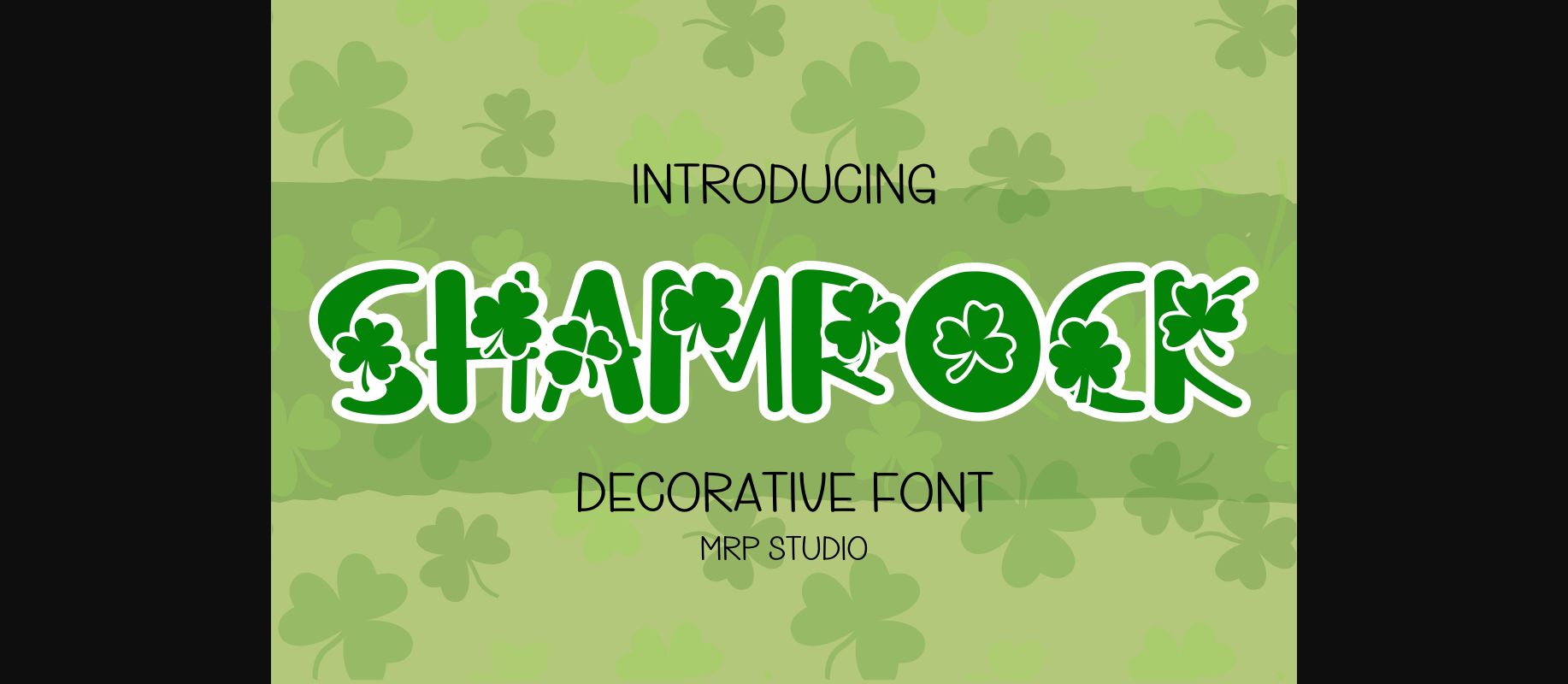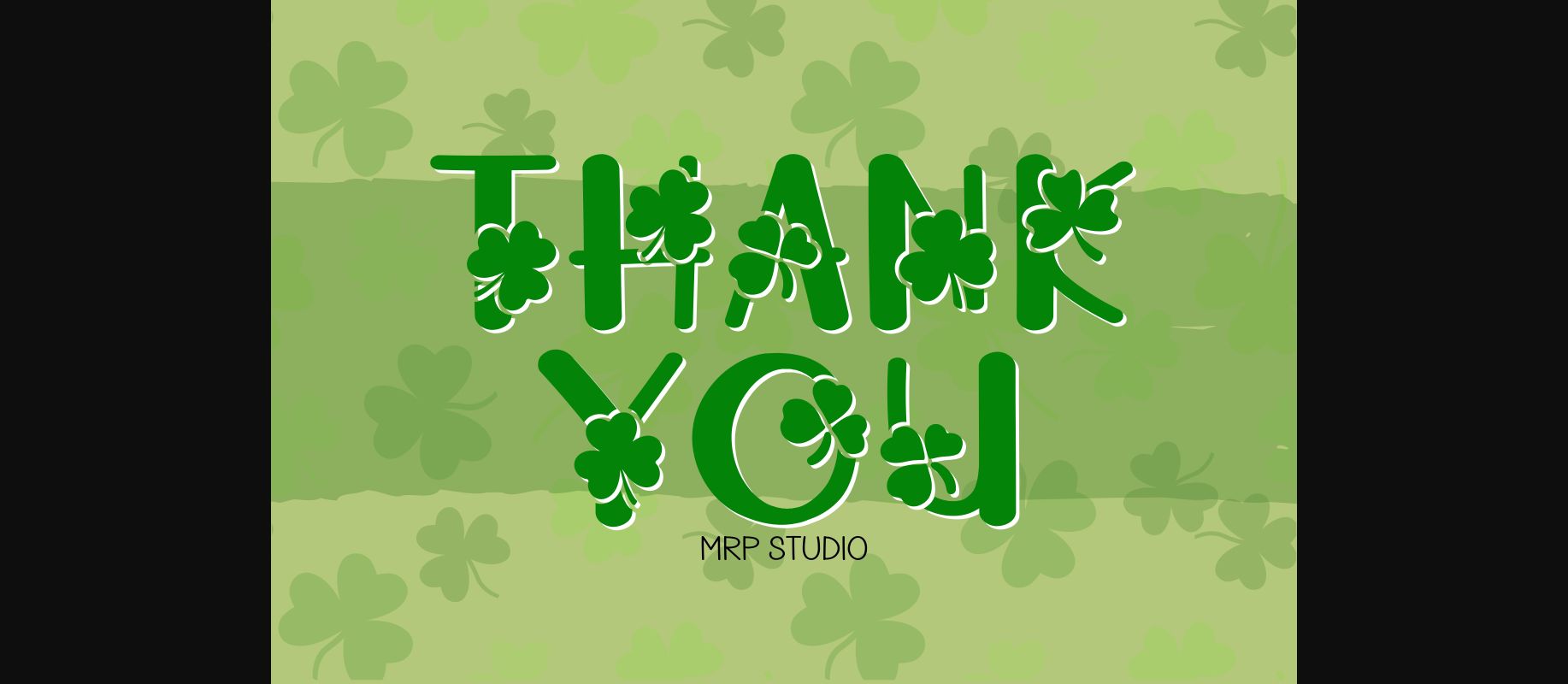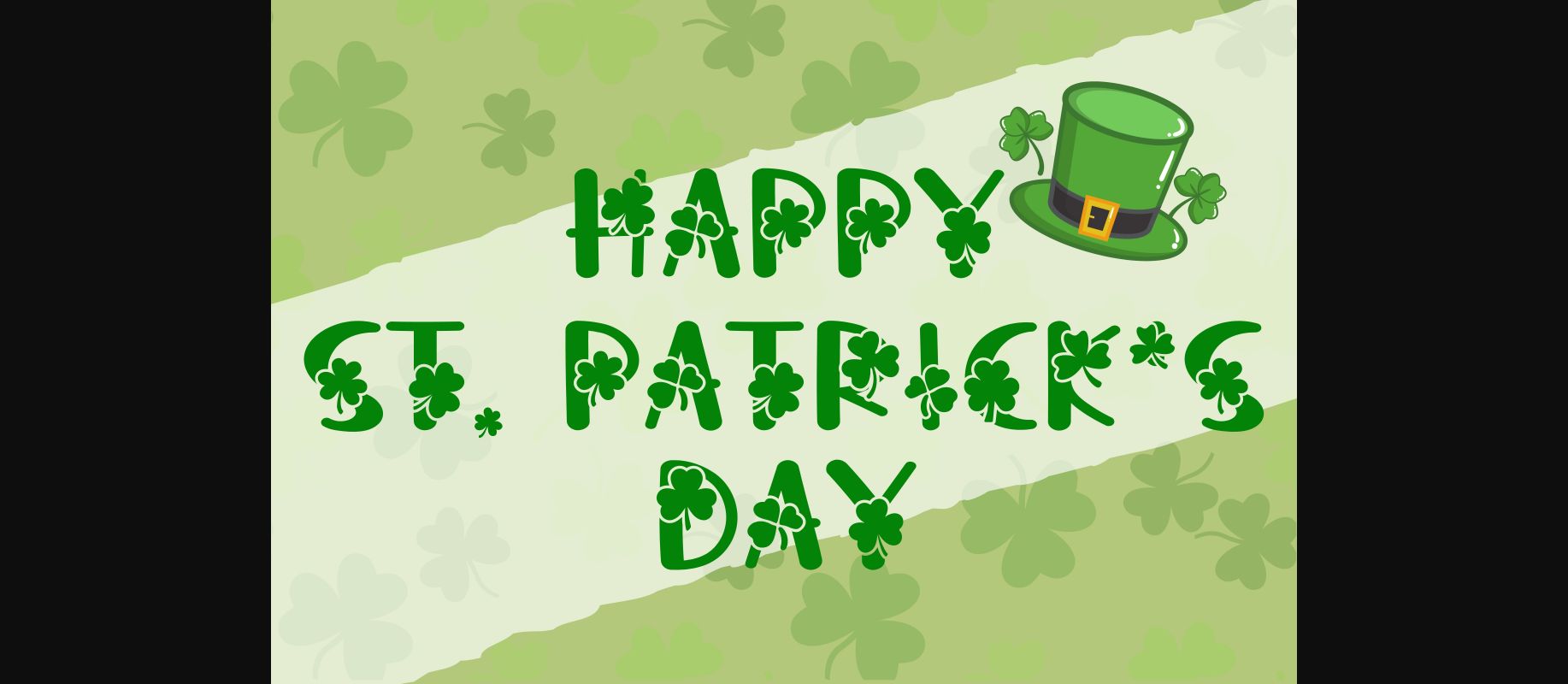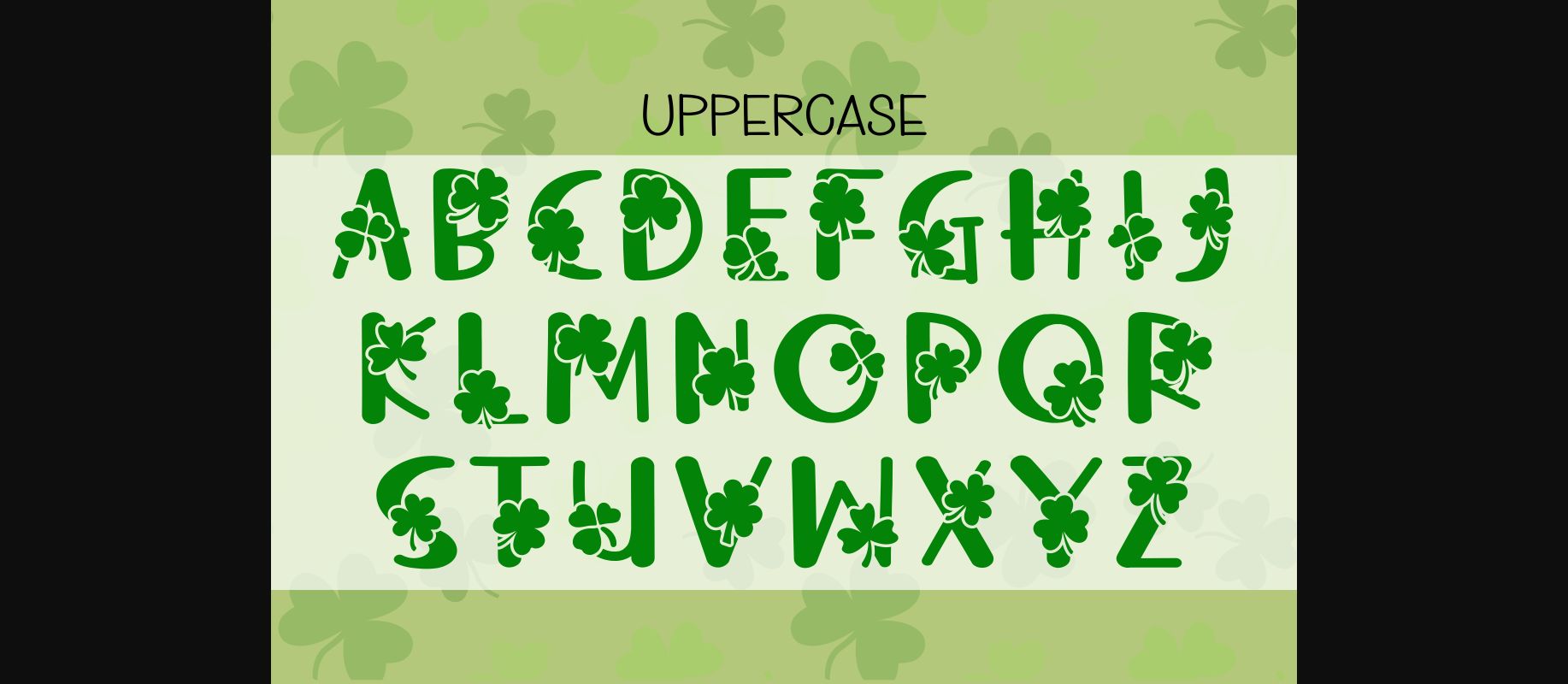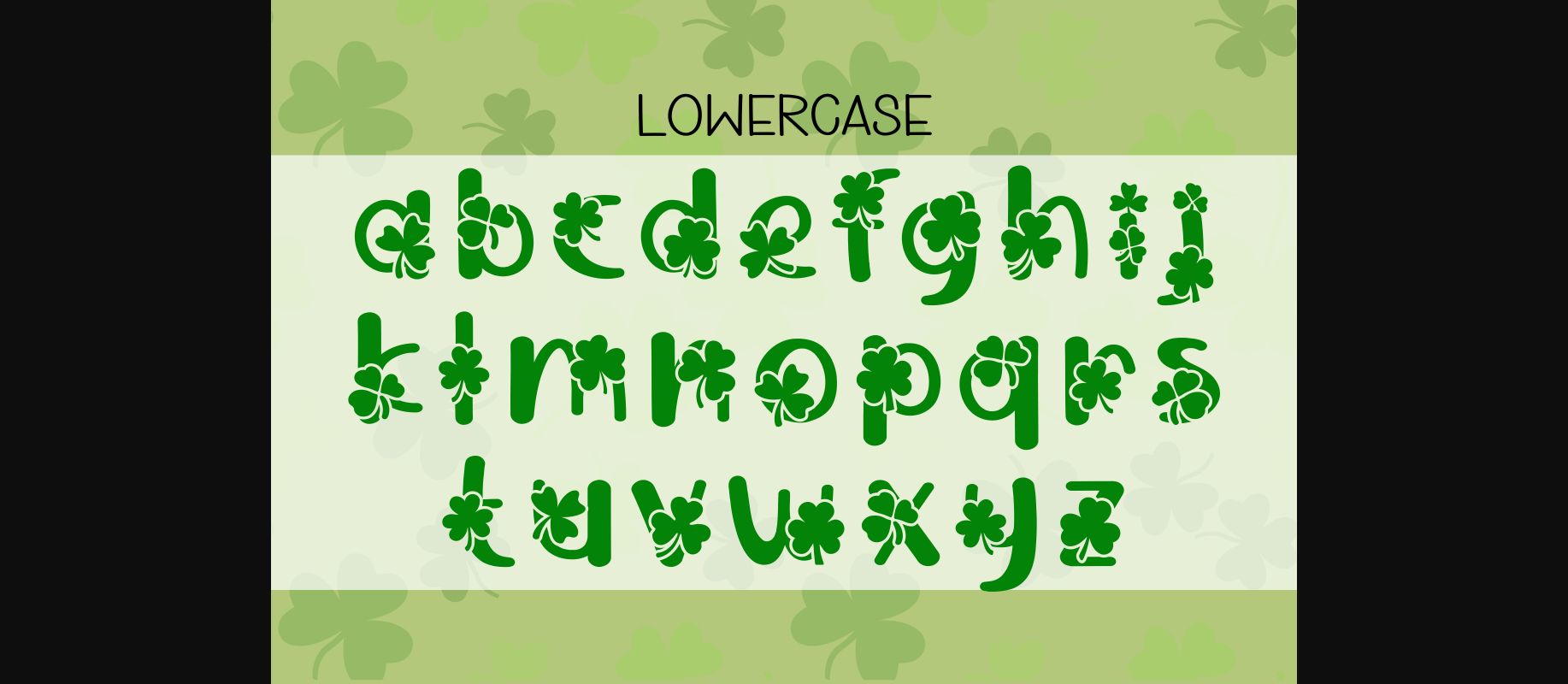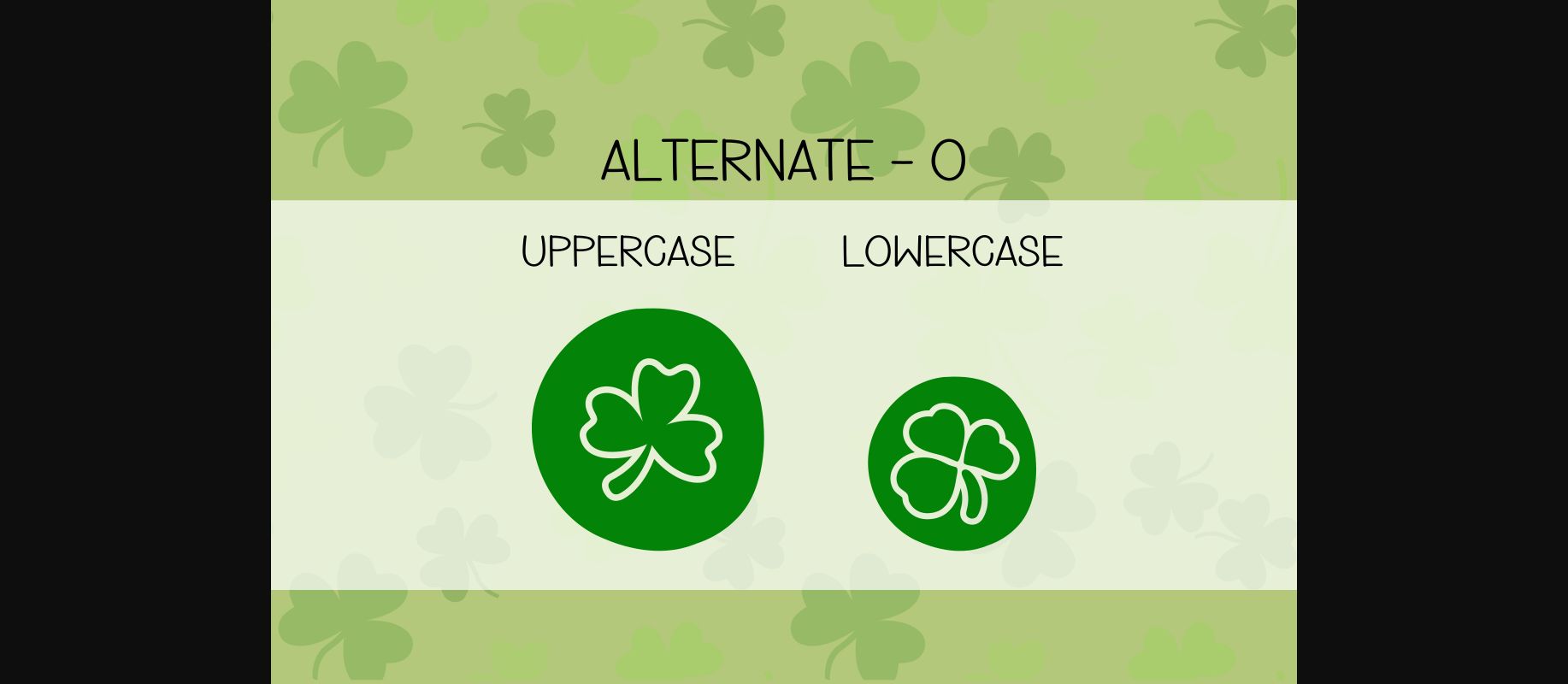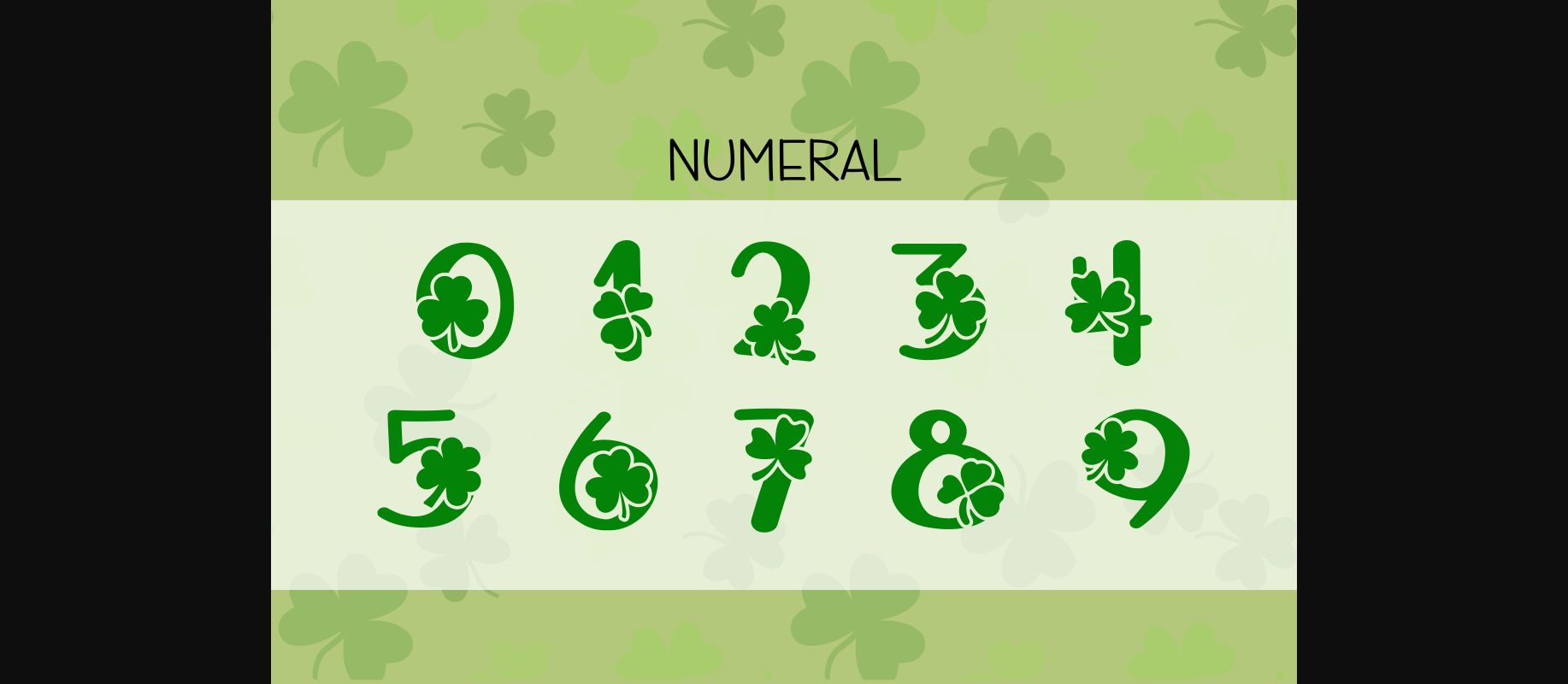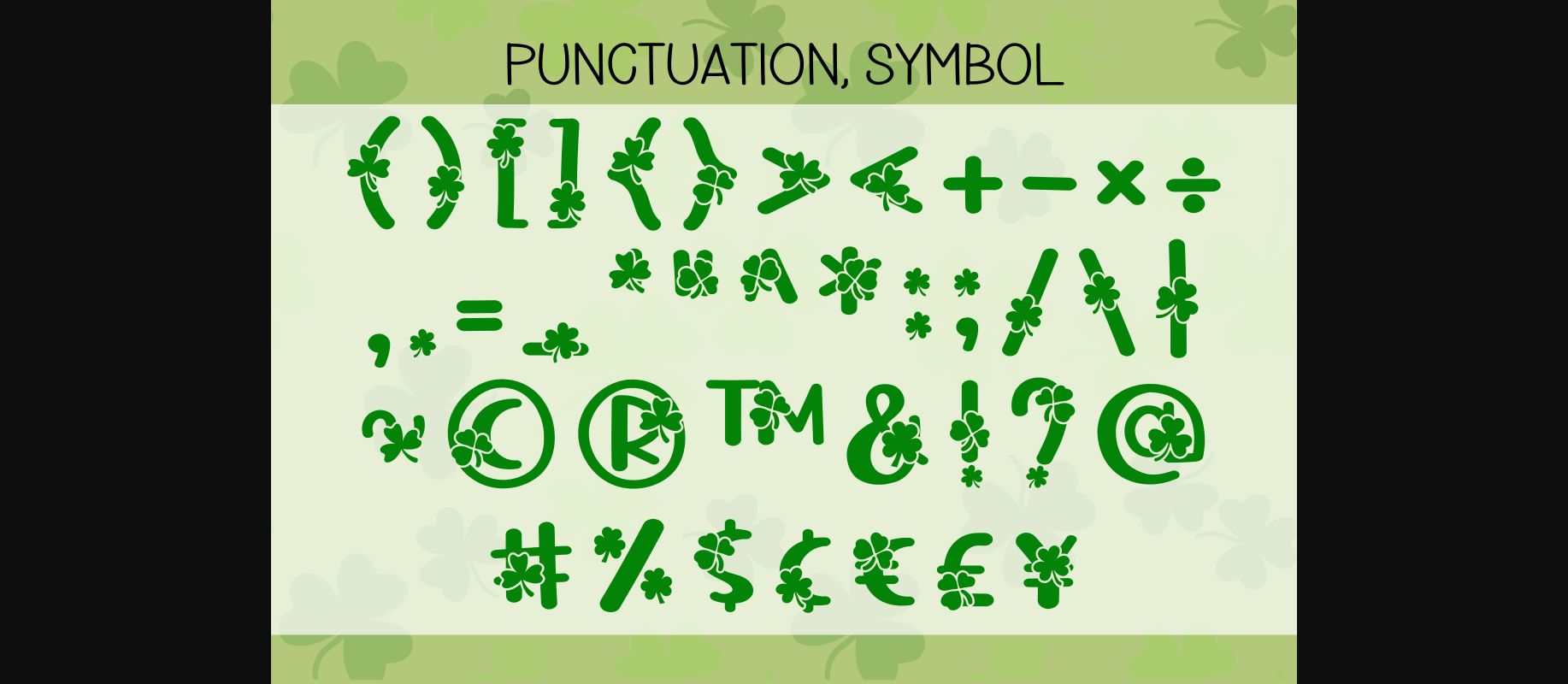
Shamrock Font
About Shamrock Font
Shamrock is designed in a cute and friendly decorative font style. Due to its unique style, this font can perfectly fit design ideas such as St. Patrick’s day crafts, children-related projects, and anything that requires a lucky touch. Add it to your creative ideas and notice how it makes them stand out!